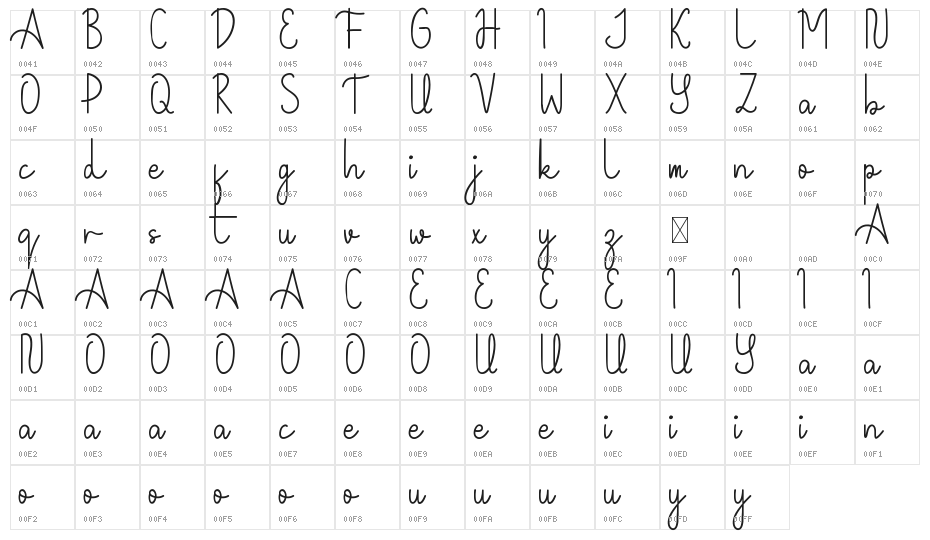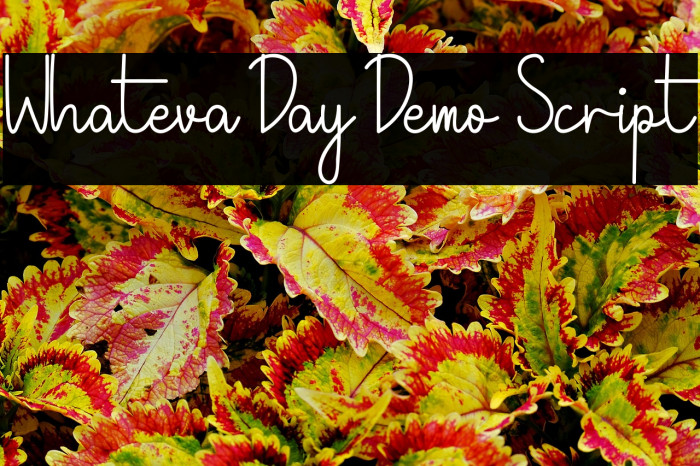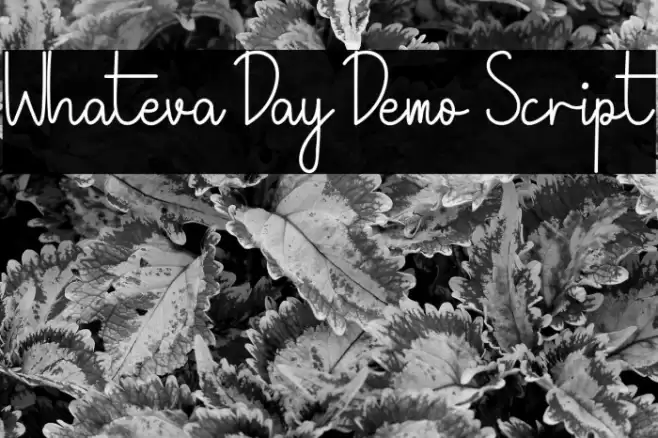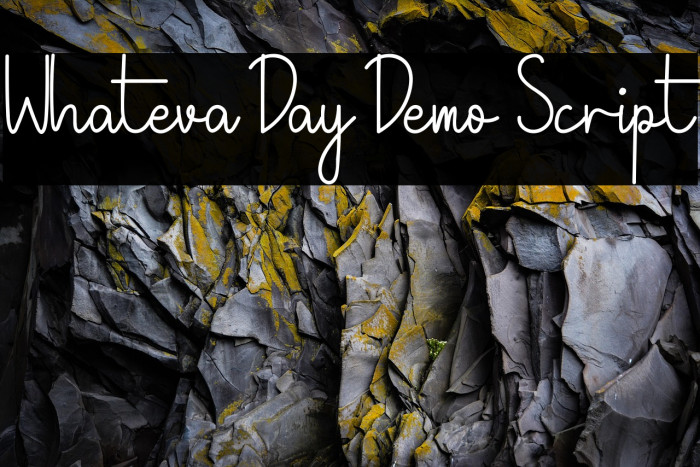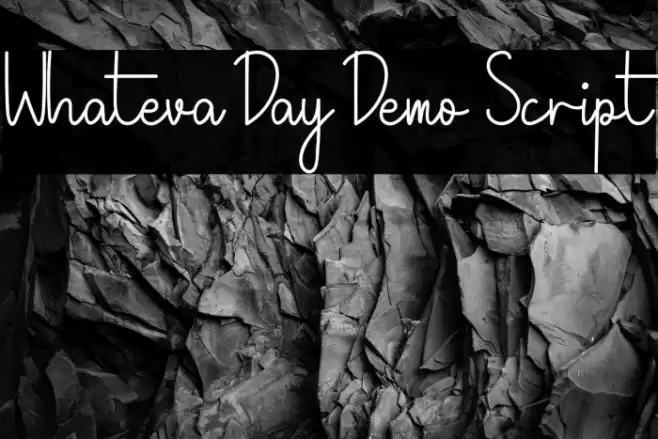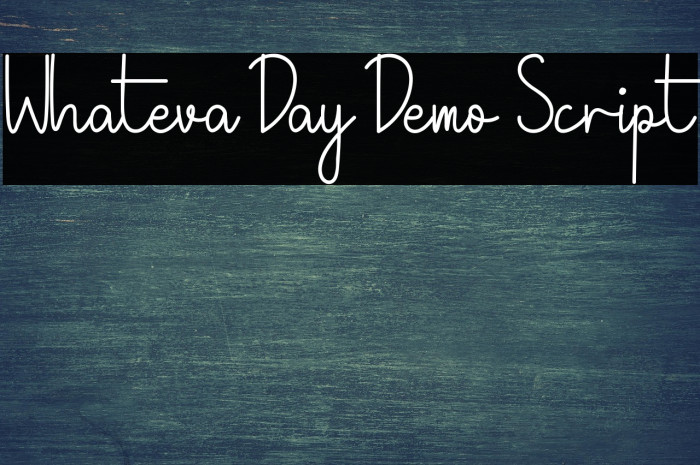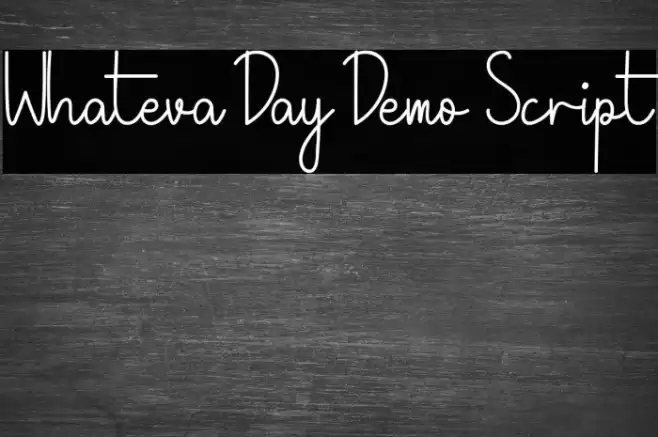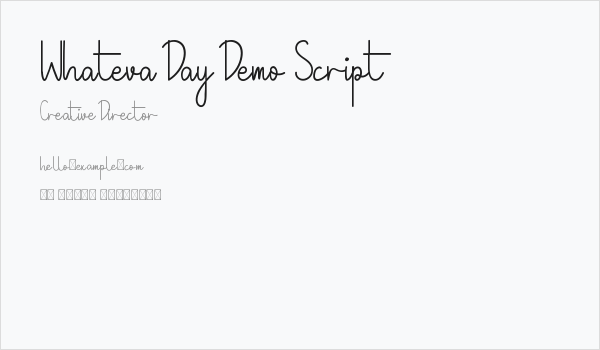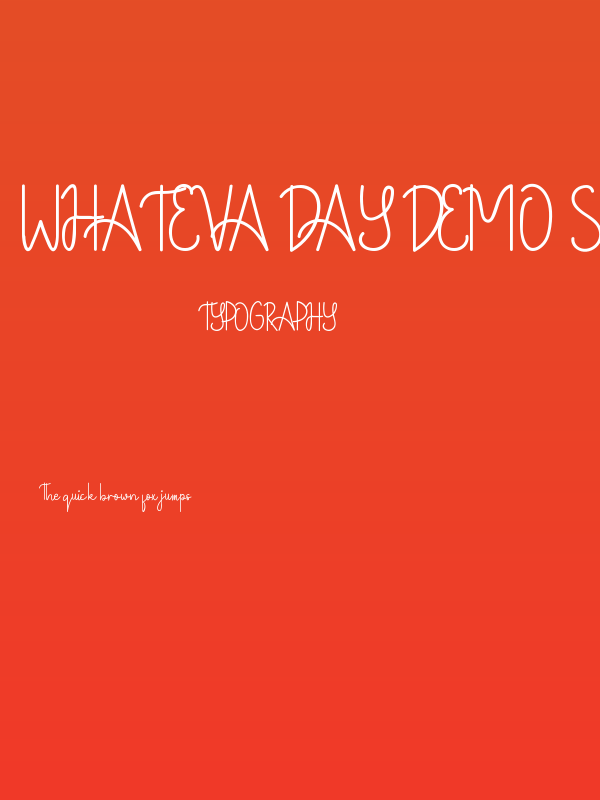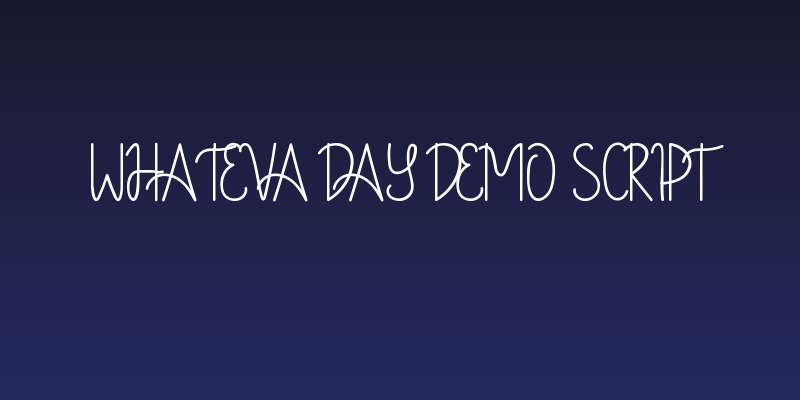
Whateva Day Demo Script Font
Whateva Day Demo Script Description
This font features a playful and whimsical script style, characterized by its flowing and interconnected letterforms. The uppercase letters are tall and slender, with a slight slant that adds a dynamic feel. The lowercase letters are more fluid, with loops and curves that create a sense of movement. The overall design is casual yet elegant, making it suitable for a variety of creative projects. The font maintains a consistent stroke width throughout, giving it a clean and cohesive appearance. Its unique style is perfect for adding a personal touch to any design.
| Use Case | Logos, Headlines, Display text |
| Proposed Projects | Ideal for invitations, greeting cards, branding, and social media graphics. |